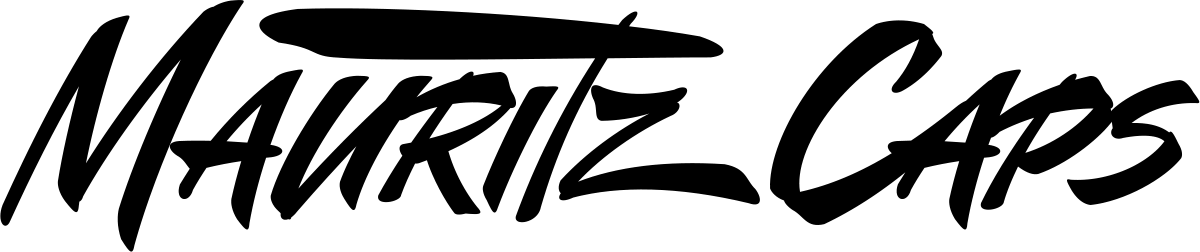
Mauritz Caps Font
Mauritz Caps is a ninja font with charisma and seriousness. Brush fonts are made to seem like the strokes and styles you’d get from a paintbrush or an ink pen. This vibrant uppercase graffiti-style writing font suits logotypes, branding, posters, and flyers. However, you should be aware that it lacks lowercase characters and numbers.
http://mn.sg/mauritzUse underscore _ anywhere in a word to make a swash.
Example: Sign_ature
Use multiple underscores for different swashes.
Example: Supe______rcars